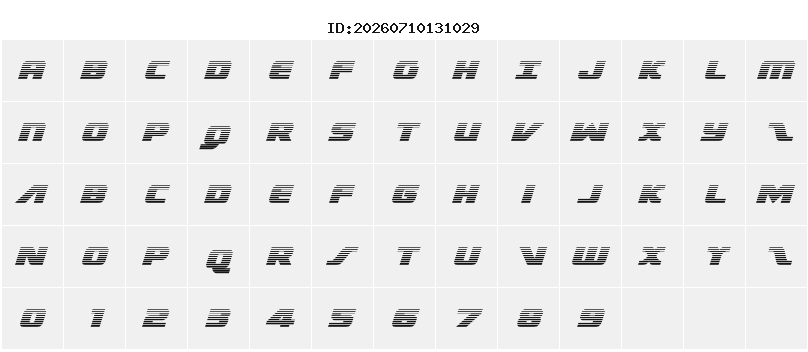
Federal Escort Scanlines Italic Preview
• Font Name: Federal Escort Scanlines Italic
• Full Font Name: Federal Escort Scanlines Italic
About Federal Escort Scanlines Italic.ttf
Federal Escort Scanlines Italic.ttf is a modern, elegant sans-serif font designed for ultimate readability and visual harmony. Perfect for branding, headlines, web design, and print materials.